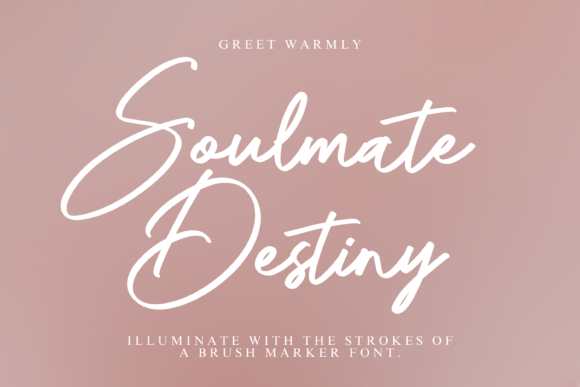
Soulmate Destiny: A Designer’s Practical Review
When evaluating a new typeface for professional work, the first question is never just about aesthetics; it is about utility and emotional resonance. My initial assessment of Soulmate Destiny reveals a script that balances organic fluidity with structural discipline. Unlike many display fonts that sacrifice legibility for flair, this typeface maintains a grounded rhythm. The mood is undeniably romantic and intimate, yet it possesses enough modern typography sensibilities to avoid feeling dated or overly kitschy. For designers and brand owners, this distinction is critical. It suggests a visual personality that can handle premium positioning without alienating contemporary audiences.
The letterforms in Soulmate Destiny exhibit a high-contrast stroke modulation that mimics traditional brush calligraphy while retaining digital precision. This hybrid nature makes it versatile. It feels handcrafted enough for artisanal packaging design but clean enough for scalable logo design. When I look at the connecting strokes, they are intentional rather than accidental, creating a seamless flow that guides the eye horizontally. This is a hallmark of a well-engineered script font. For content creators and digital sellers, this means the font performs reliably across various mediums, from intricate Cricut projects to large-format web headers, without requiring excessive manual kerning or adjustment.
Performance Across Brand Identity and Packaging
In real-world branding scenarios, Soulmate Destiny shines brightest when tasked with establishing tone. For brand identity systems, it functions exceptionally well as a primary logotype for lifestyle, beauty, and wellness sectors. The font carries an inherent warmth that builds immediate audience trust. However, its true test lies in packaging design. On product labels, particularly those with limited real estate like cosmetic jars or candle tins, the x-height remains generous enough to maintain recognition at smaller scales. This is where many decorative scripts fail, but Soulmate Destiny holds its integrity.
For marketers working on merchandise and printable design, the font’s bold presence ensures it translates well to physical goods. Whether embroidered on textiles or printed on tote bags, the stroke weight is substantial enough to survive production processes without breaking up. In editorial design, such as wedding invitations or luxury event collateral, it provides the necessary hierarchy. It commands attention as a headline element while allowing supporting text to breathe. This balance is essential for maintaining professionalism in high-stakes client work where readability cannot be compromised for style.
Navigating Digital Applications and Social Media
Digital environments present unique challenges for script typography, primarily regarding screen resolution and responsive scaling. In my testing for social media graphics and digital ads, Soulmate Destiny proved robust. It retains clarity even when overlaid on textured backgrounds or photographic imagery, which is a frequent requirement for Instagram and Pinterest content. For bloggers and influencers using Canva templates, this font offers a "drag-and-drop" reliability. It does not require advanced typographic knowledge to look good, making it a valuable asset for non-designers creating commercial assets.
Web design applications require more caution. While effective for hero sections and short impactful statements, I would advise against using this typeface for navigation menus or body copy. Its complexity demands space. In website headers, it pairs best with ample negative space to prevent visual clutter. For digital products like e-books or course materials, use Soulmate Destiny strictly for chapter titles or pull quotes. This restraint preserves the font’s premium feel and prevents user fatigue. Engagement metrics often correlate with readability; if users struggle to parse the text, bounce rates increase. Soulmate Destiny respects the reader’s time by being distinct yet decipherable in brief encounters.
Strategic Restraint: Where to Exercise Caution
Every creative font has a breaking point, and recognizing it is what separates amateur layouts from professional design. Soulmate Destiny should be used carefully in all-uppercase settings. Like most connected scripts, forcing capital letters disrupts the natural ligatures and creates awkward spacing gaps that undermine the design's cohesiveness. Stick to title case or sentence case to preserve the intended rhythm. Additionally, avoid using this font for dense information blocks. Legal disclaimers, ingredient lists, and technical specifications demand a neutral sans serif font or a highly legible serif font. Using a display font in these areas erodes brand consistency and can signal a lack of attention to detail.
Another area requiring judgment is color contrast. Because the strokes vary in thickness, thin hairlines can disappear on low-contrast backgrounds. Always test your color combinations rigorously. If you are designing for accessibility compliance, ensure the font meets WCAG standards at the intended size. For small business owners printing on colored paper or dark fabrics, request a physical proof before committing to a full run. What looks vibrant on a calibrated monitor may become illegible on uncoated stock. Professionalism is defined by these practical considerations, not just the selection of a beautiful typeface.
Essential Designer Notes for Implementation
Before deploying Soulmate Destiny in any commercial project, adhere to this evaluation checklist to ensure optimal results:
- Test in Black and White: Strip away color to evaluate the form. If the font relies on color to be interesting, it is not strong enough for core brand identity. Soulmate Destiny passes this test, relying on shape and contrast.
- Assess Font Pairing: This script needs a grounding partner. Test it beside a geometric sans serif font for a modern, clean aesthetic, or a transitional serif font for a classic, editorial look. Avoid pairing it with other handwritten fonts, as competing personalities create visual noise.
Ultimately, Soulmate Destiny is a sophisticated tool for the discerning designer. It bridges the gap between expressive artistry and commercial viability. By understanding its strengths in branding and packaging, respecting its limitations in digital and dense text, and applying rigorous testing protocols, you can leverage this typeface to create work that feels both deeply personal and professionally executed. It is not merely a decorative element; it is a strategic component of visual communication that, when used correctly, elevates the perceived value of any project.